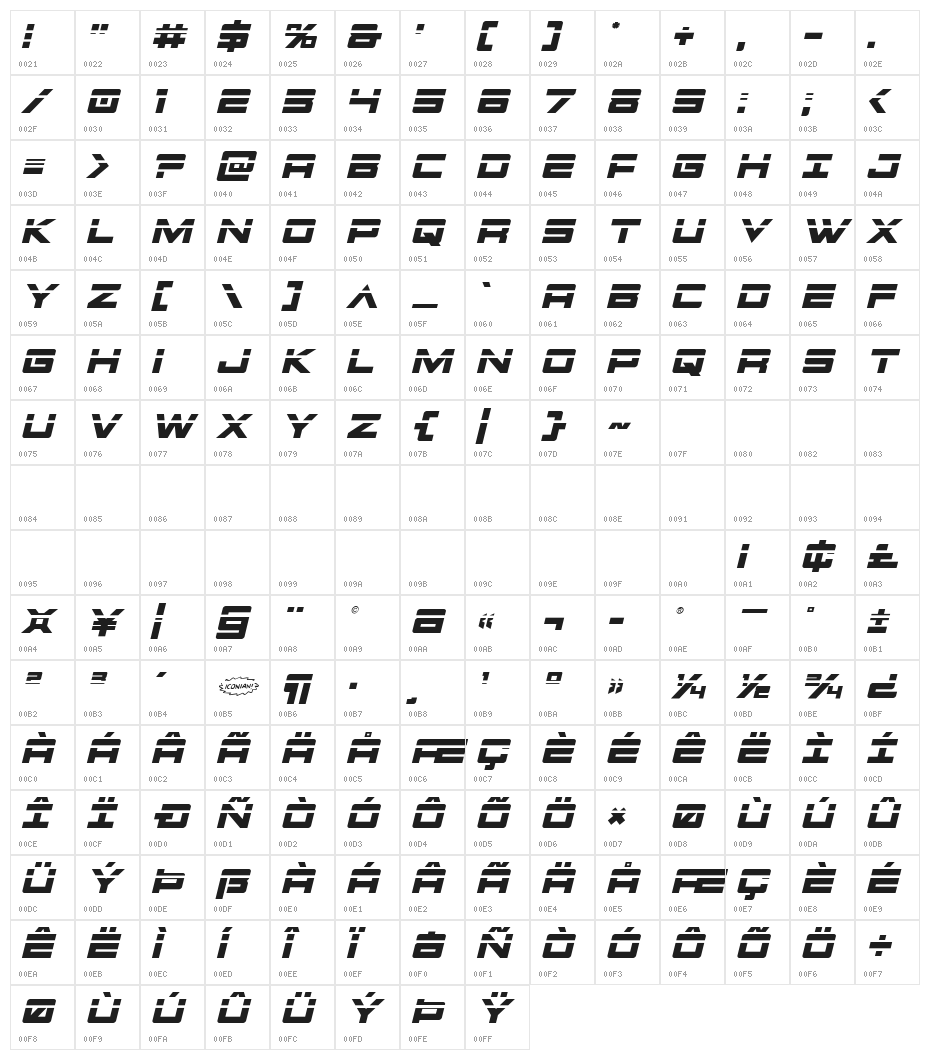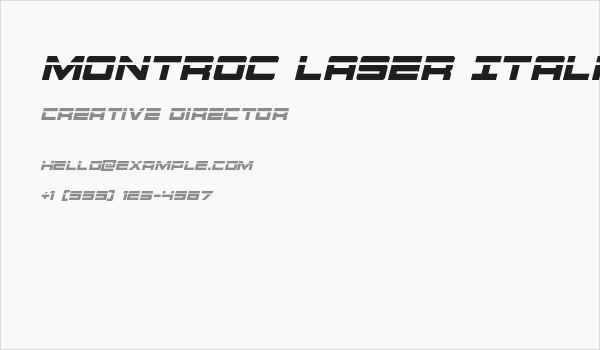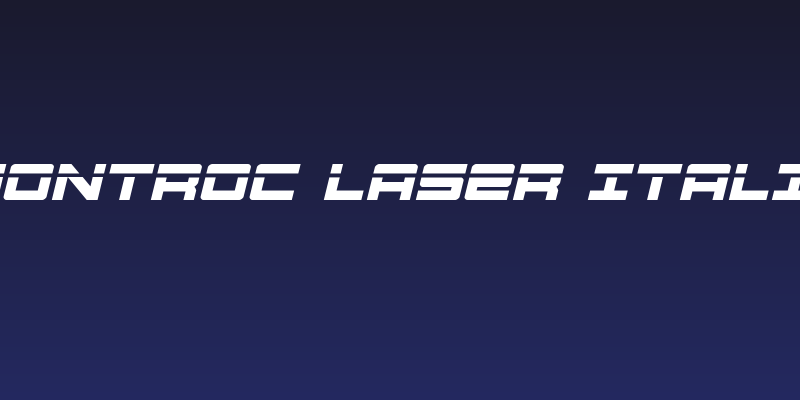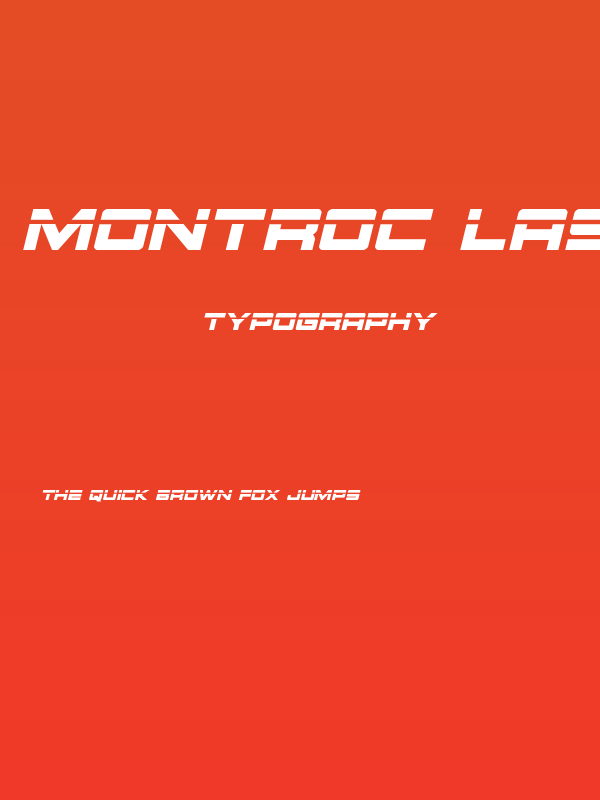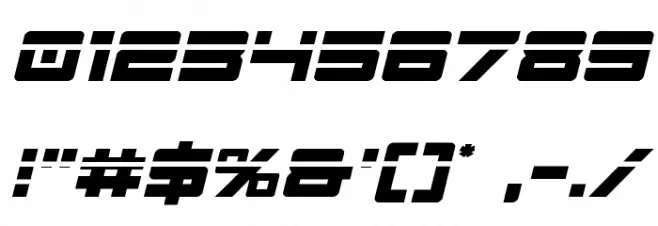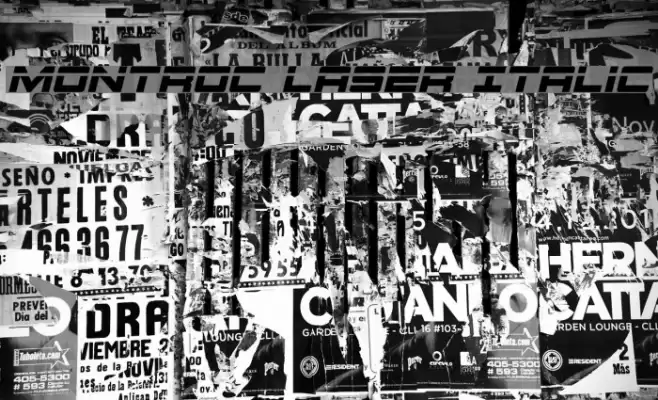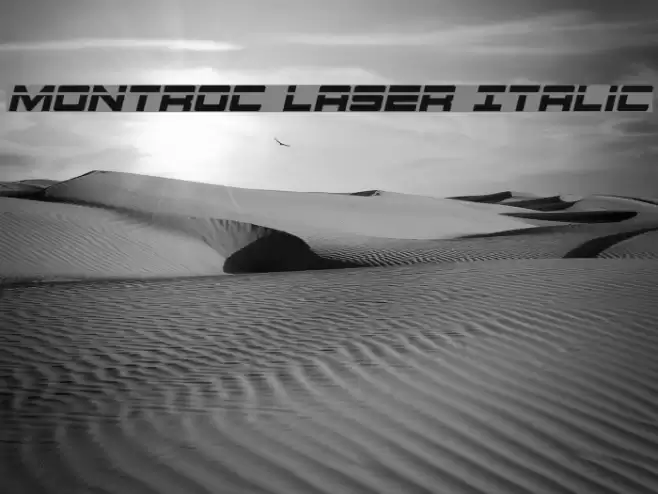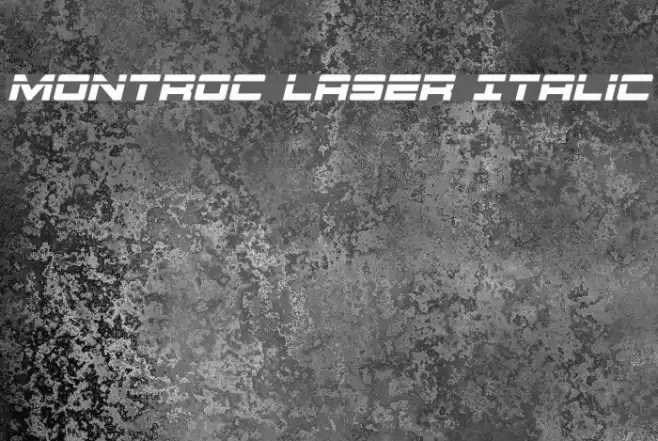
Montroc Laser Italic Font
Montroc Laser Italic Description
This font features a futuristic and dynamic design, characterized by sharp angles and a slanted, italicized style. The characters are bold and impactful, with a geometric structure that gives them a modern, tech-inspired appearance. The uppercase and lowercase letters maintain a consistent style, with a slight forward slant that enhances the sense of motion and speed. The numbers and special characters are designed to match the overall aesthetic, making them suitable for a cohesive visual presentation. The font's unique style makes it ideal for projects that require a bold and contemporary look.
| Proposed Projects | Ideal for tech branding, video game titles, sci-fi posters, and modern advertising. |